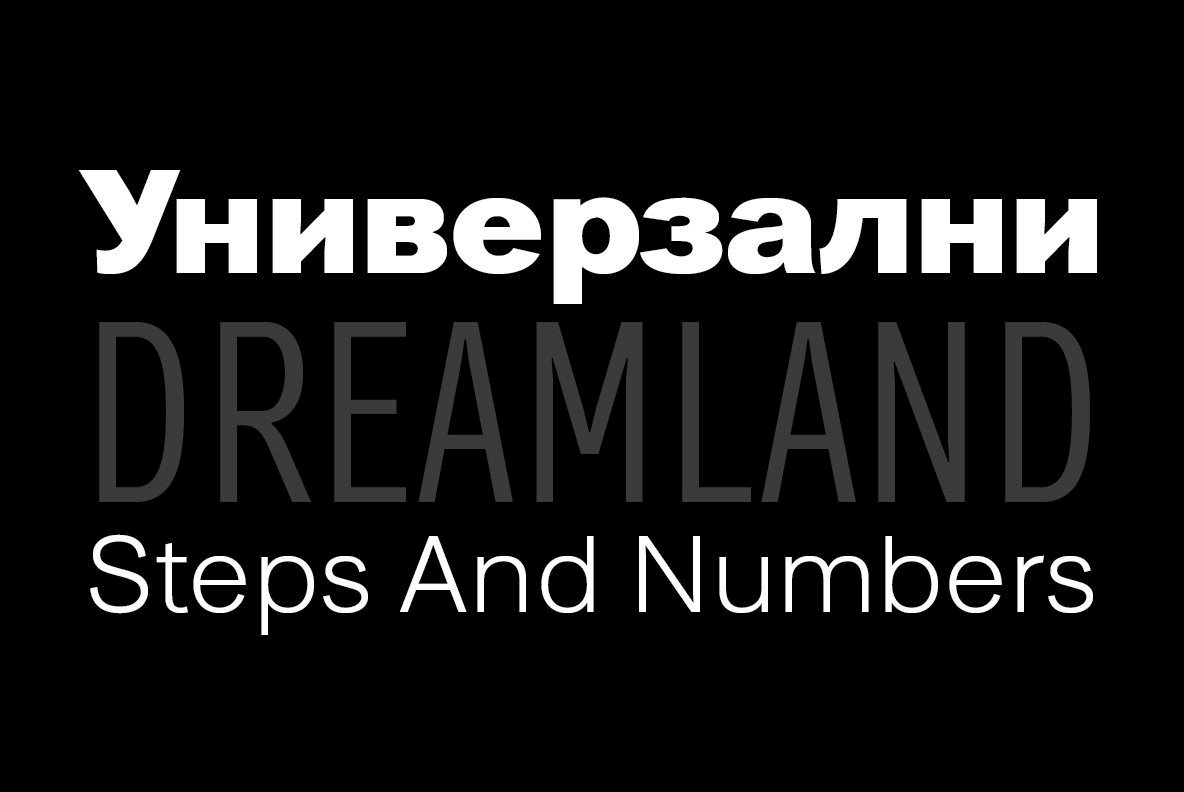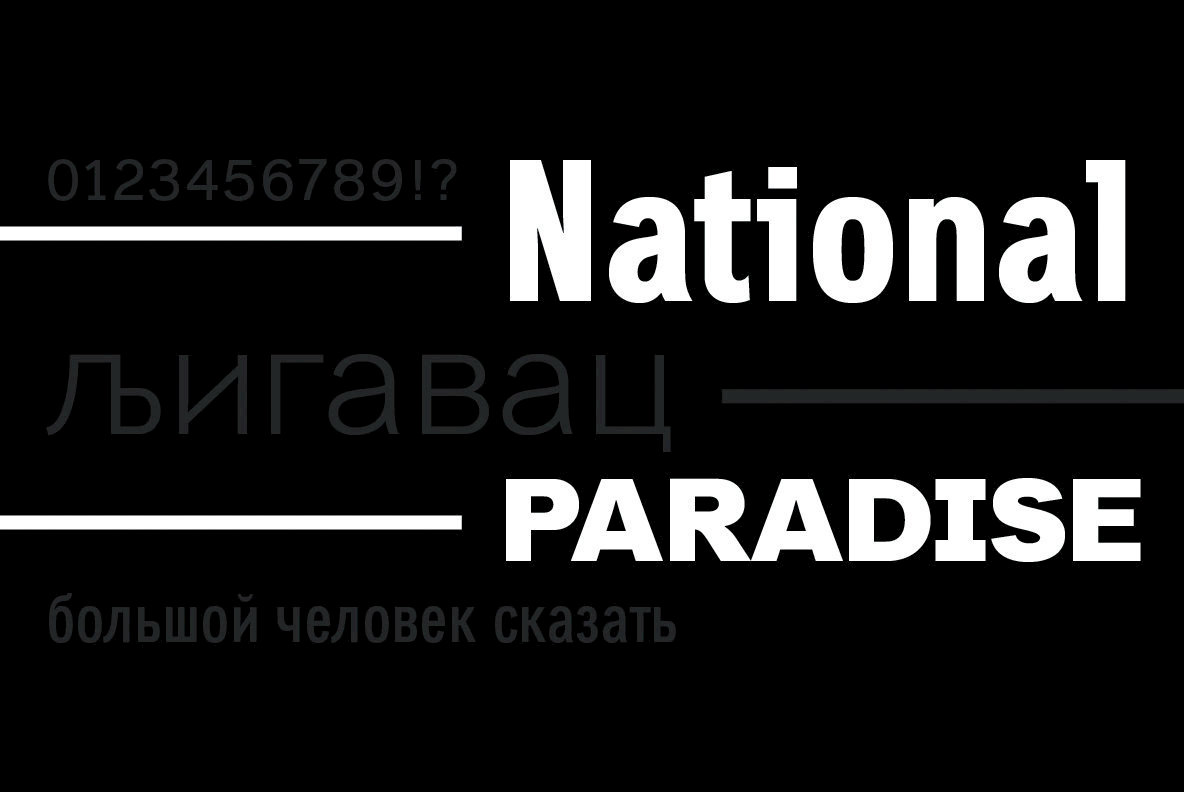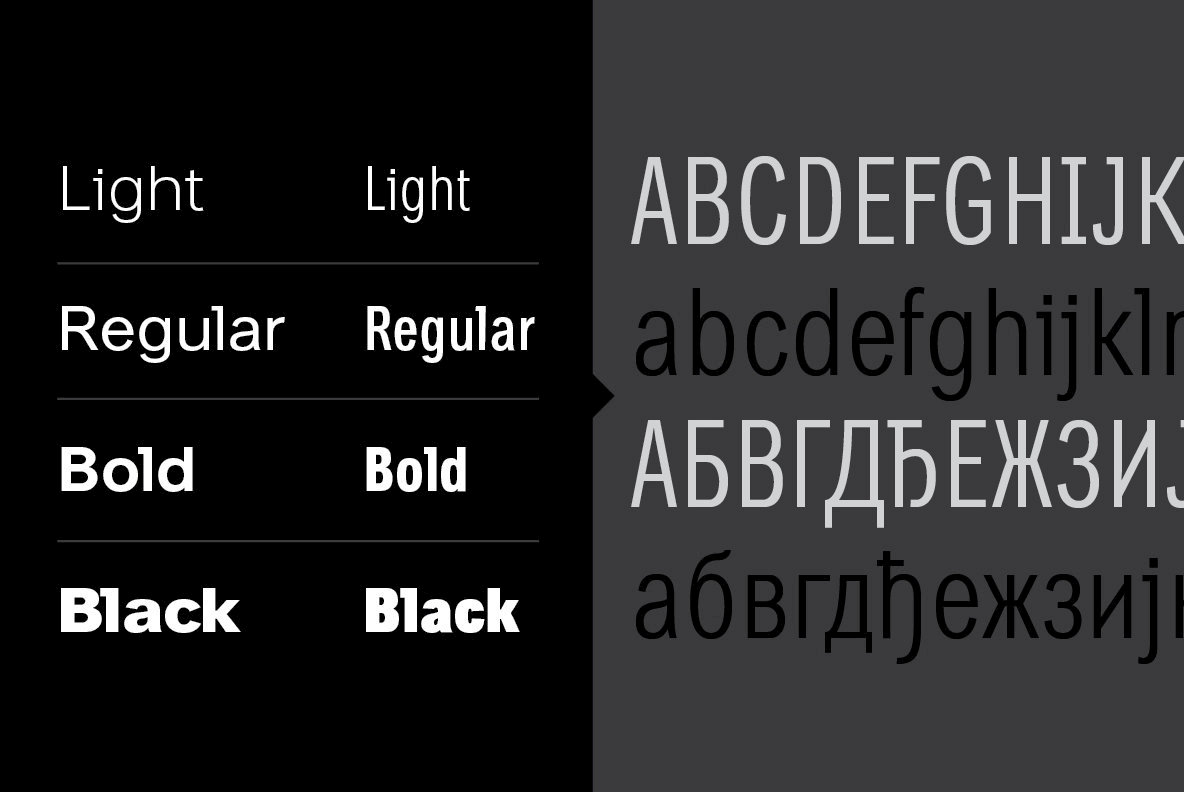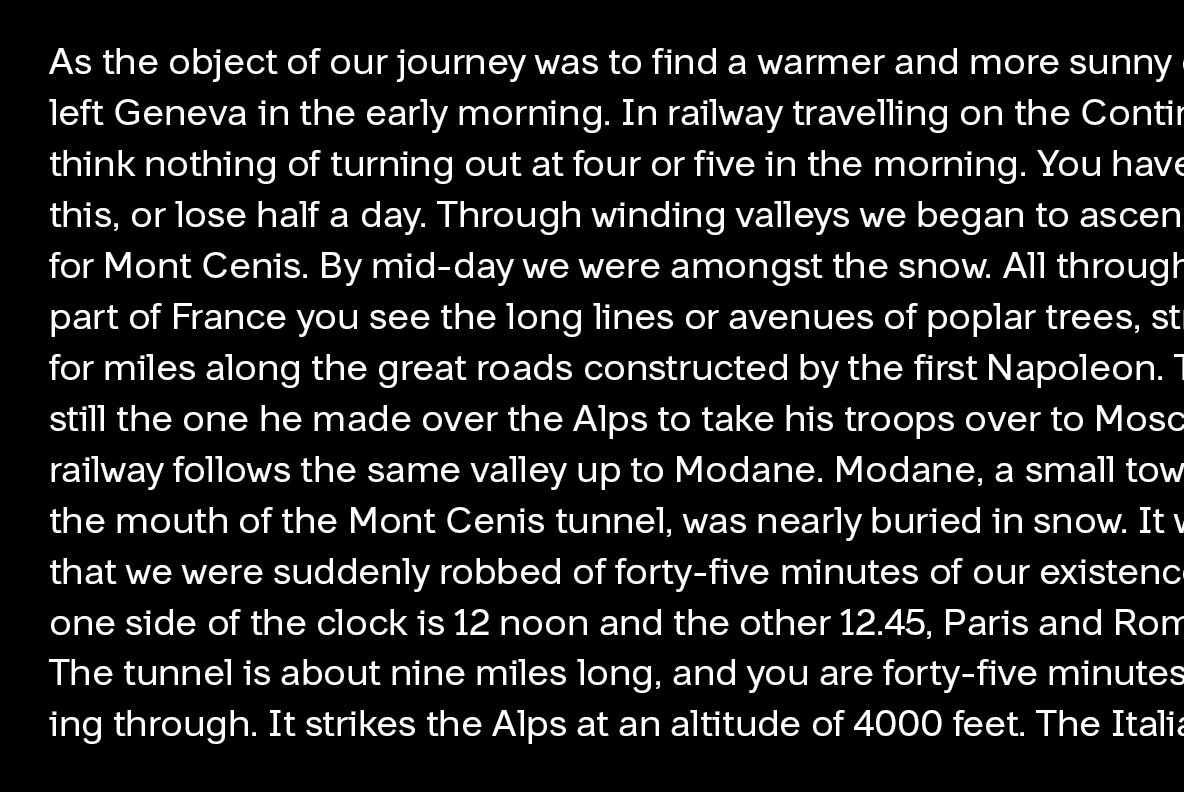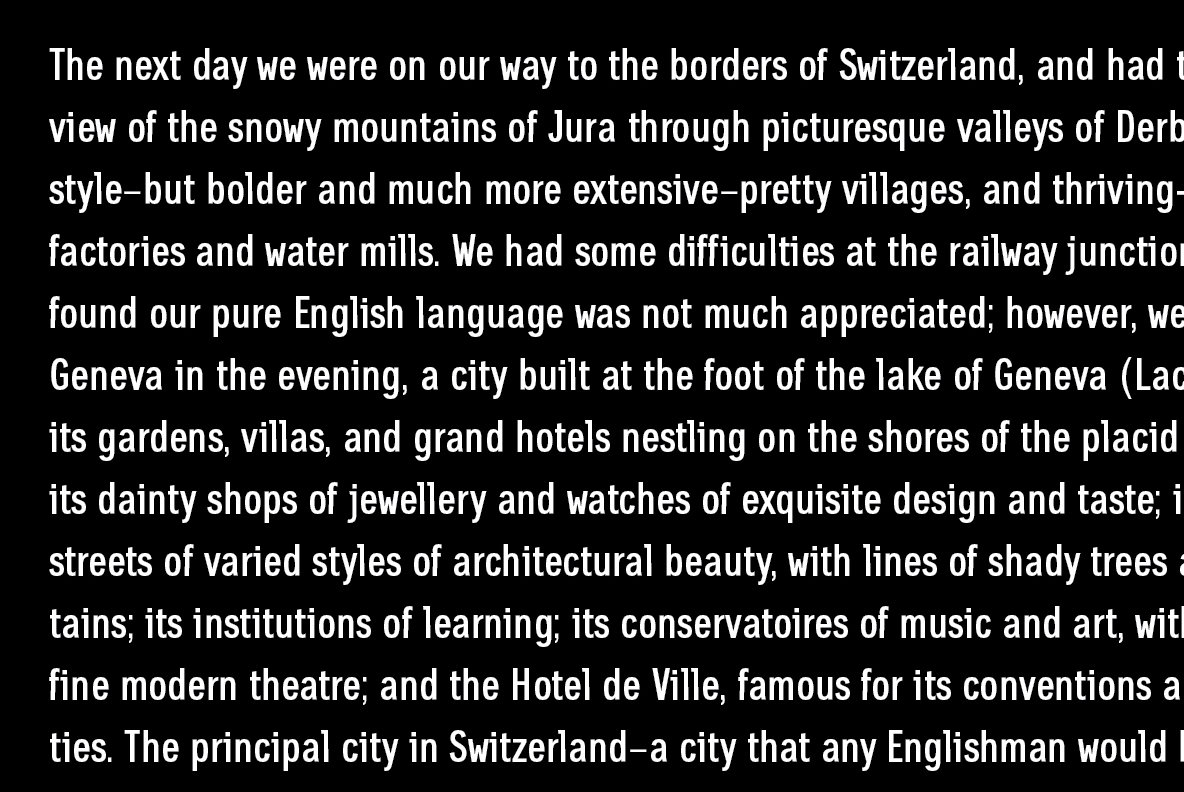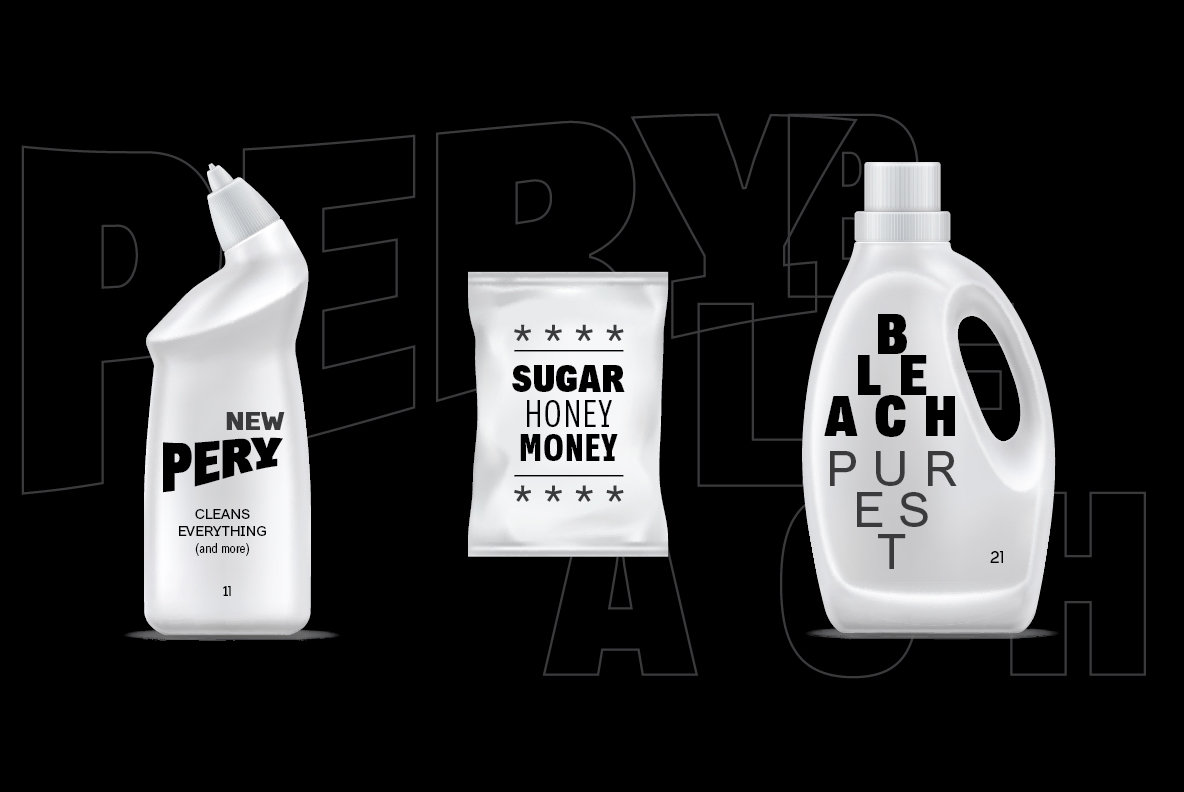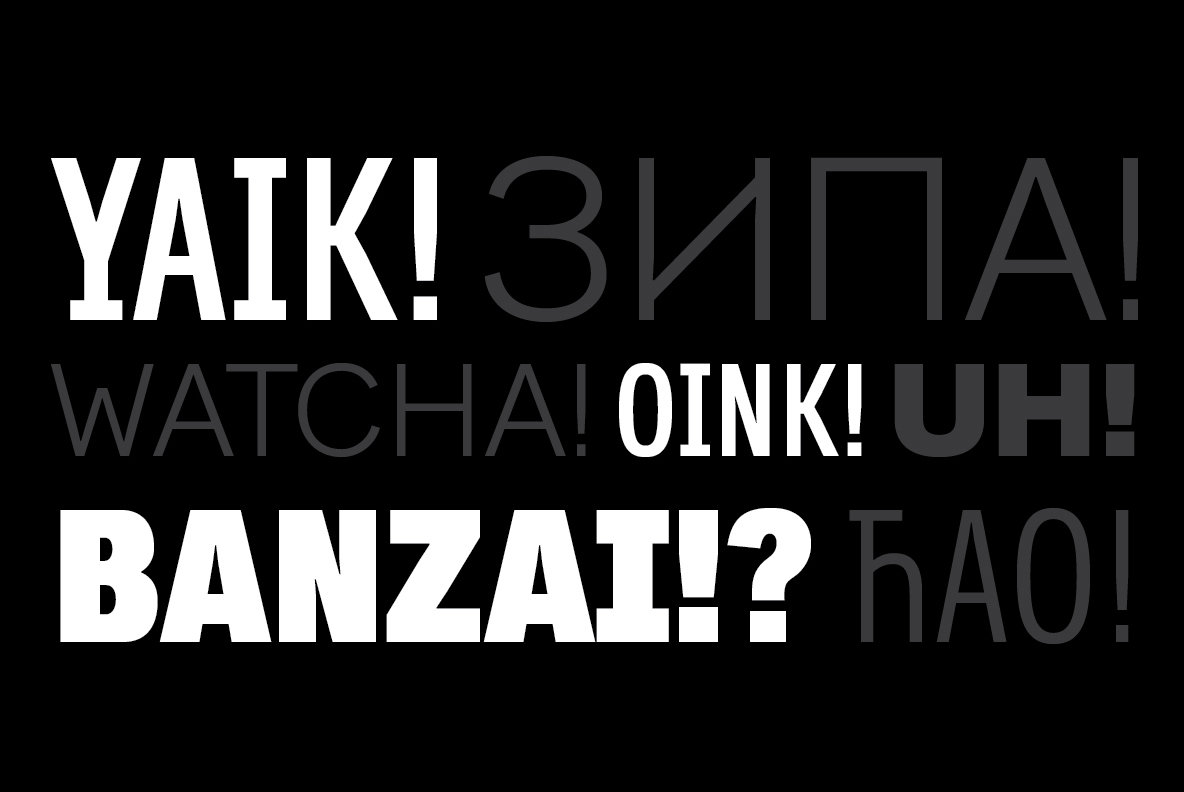
Dopis Font
Dopis (Допис on Cyrillic) is neo grotesque family available in four weights and in two widths. It is universal and neutral typeface, fully applicable in every situation. Contains extended Latin character set with Cyrillic support.